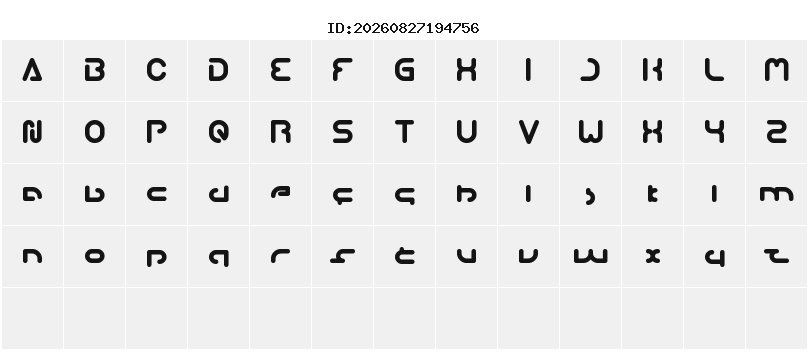
• Font Name: techno VARIOUS
• Full Font Name: techno VARIOUS
About techno VARIOUS.ttf
techno VARIOUS.ttf is a modern, elegant sans-serif font designed for ultimate readability and visual harmony. Perfect for branding, headlines, web design, and print materials.